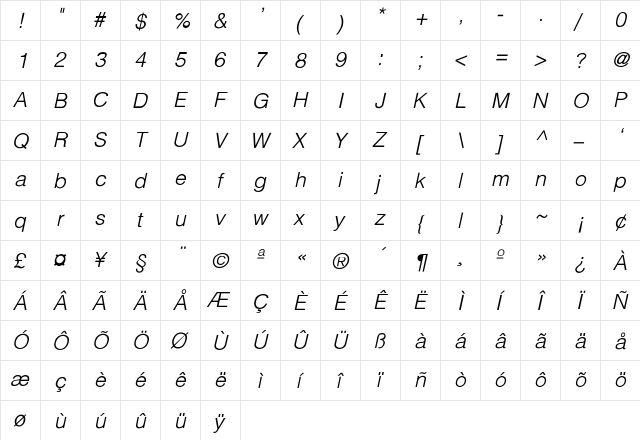
Helvetica-Light-Light-Italic Regular Font Preview
Design Context for Helvetica-Light-Light-Italic Typeface
Helvetica-Light-Light-Italic takes a measured approach to typography — its balanced proportions and neutral character make it a reliable workhorse for both digital and print work. The slanted form adds forward momentum and visual energy. The delicate stroke weight brings airiness and refinement to layouts.
Pro Tip: Try Helvetica-Light-Light-Italic for annotation and caption copy alongside an upright companion — the contrast in angle creates a dynamic but ordered typographic system.